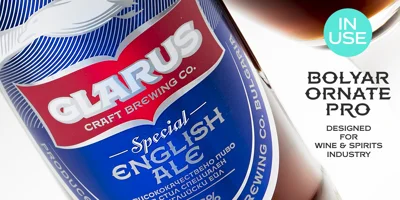
FM Bolyar Ornate Pro Font
The FM Bolyar Ornate Pro Font is ideal for luxurious decorative design projects including premium wedding invitations, ornate certificates, baroque-style event materials, elegant restaurant branding, luxury hotel communications, classical music programs, historical society publications, and distinguished cultural institution presentations. This elaborate typeface brings aristocratic grandeur and ornamental sophistication to any design project requiring highly decorative typography with regal elegance and classical ornamental beauty.
What makes FM Bolyar Ornate Pro Font so exciting is its magnificent embodiment of baroque ornamental tradition with intricately decorated letterforms that capture the essence of royal elegance and aristocratic luxury. The letters feature elaborate ornamental characteristics with baroque-inspired flourishes that create an immediate sense of regal sophistication and classical grandeur. This distinctive ornate character makes it perfect for brands and projects that want to communicate luxury excellence, aristocratic heritage, and the compelling appeal of baroque decorative artistry and ornamental magnificence.
The FM Bolyar Ornate Pro Font family typically includes comprehensive ornamental variations with extensive decorative elements and baroque-inspired flourishes. Many versions feature royal symbols, aristocratic ornaments, and classical decorative glyphs that enhance its authenticity for luxury ceremonial and high-end ornamental applications.
Whether you're designing for luxury events, aristocratic brands, or prestigious cultural institutions, FM Bolyar Ornate Pro Font provides the perfect solution for projects that need to convey ornamental magnificence and baroque elegance. This font transforms standard text into regal designs that immediately communicate luxury excellence, aristocratic sophistication, and the breathtaking beauty of baroque ornamental artistry to audiences appreciating classical luxury and ornamental design mastery.